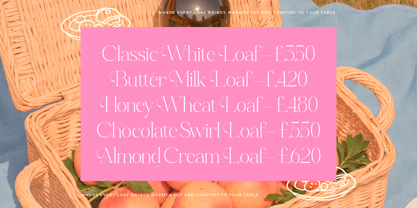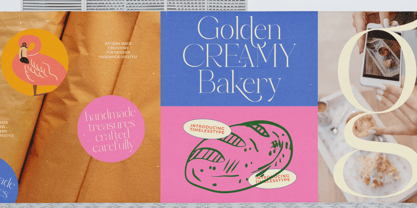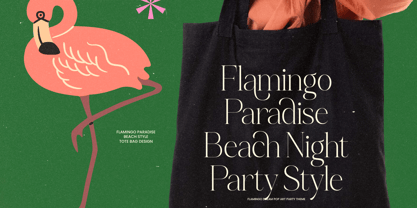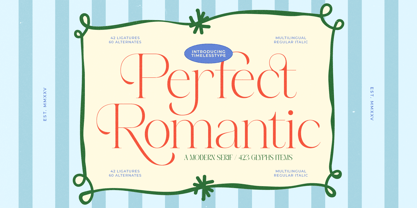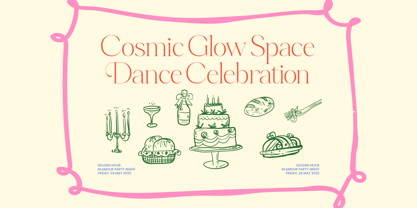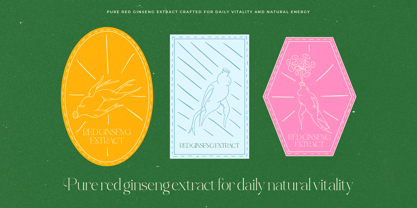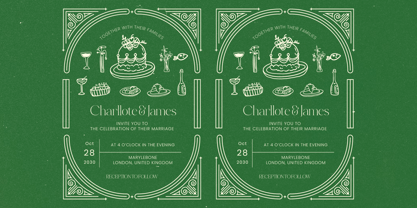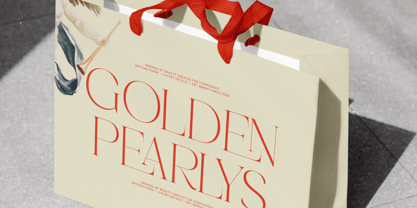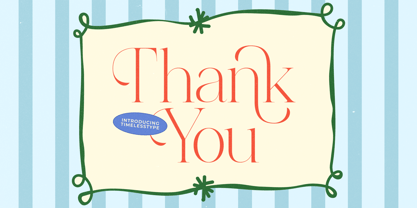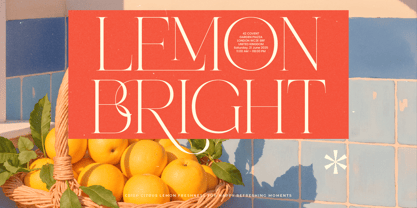
Perfect Romantic
by Timelesstype Studio
The Perfect Romantic Font Family was designed by Heru Utama Putra and published by Timelesstype Studio. Perfect Romantic contains 2 styles and family package options. More about this family
Perfect Romantic is a refined modern serif crafted for elegance, charm, and editorial beauty. Its tall, graceful letterforms, delicate curves, and high-contrast strokes bring a sophisticated romantic personality to any design. The font comes with 42 ligatures and 60 alternates, giving you expressive flexibility for branding, magazines, wedding stationery, luxury packaging, and timeless typographic layouts. With multilingual support and both regular & italic styles, Perfect Romantic delivers a polished, artistic serif aesthetic that feels contemporary yet classically warm.